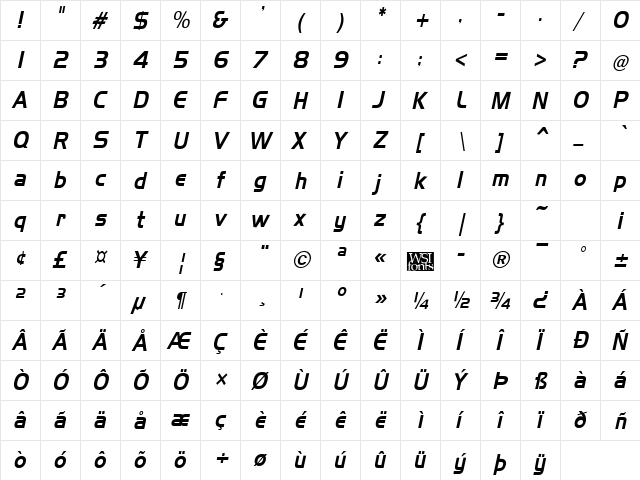
Slickerer kursiv
Design Context for Slickerer Typeface
Slickerer is a composed and adaptable typeface that performs quietly and consistently across a wide range of design contexts. Its italic angle brings a sense of urgency and motion to the letterforms.
Pro Tip: Use Slickerer for emphasis, pull quotes, and subheadings where its slanted energy can add rhythm to the layout.